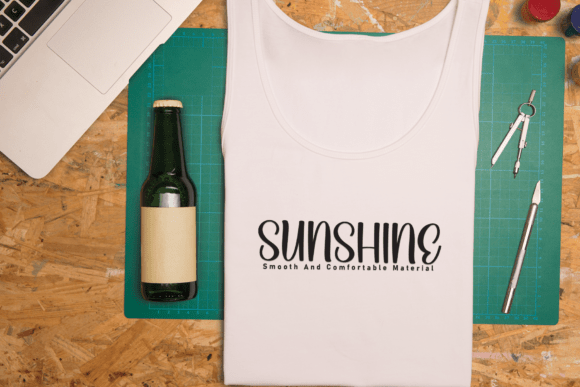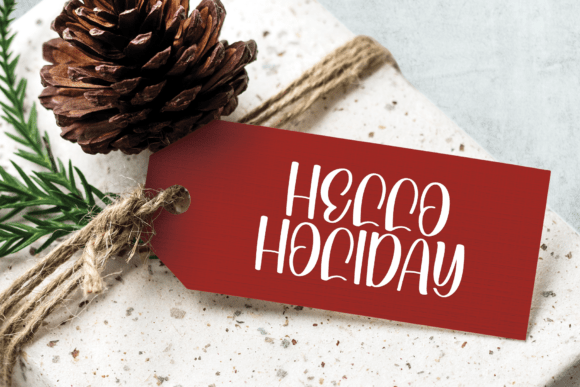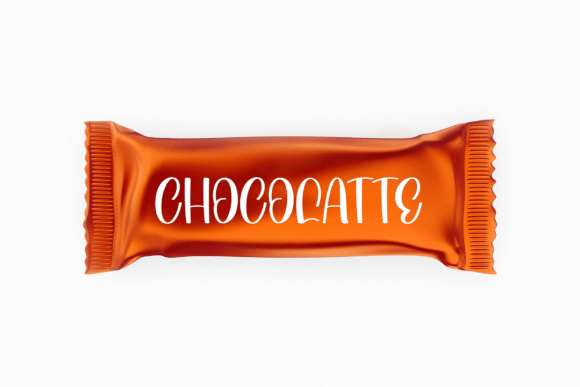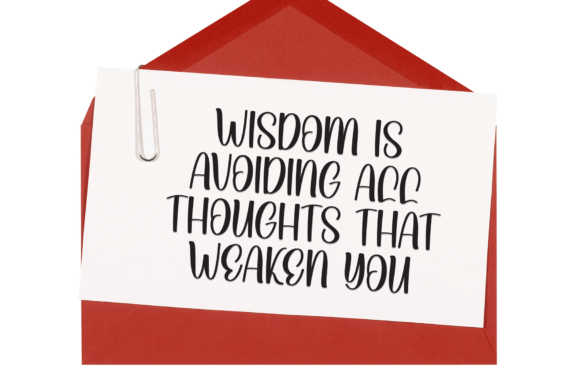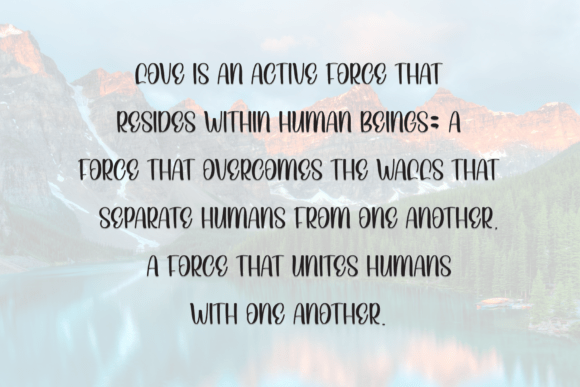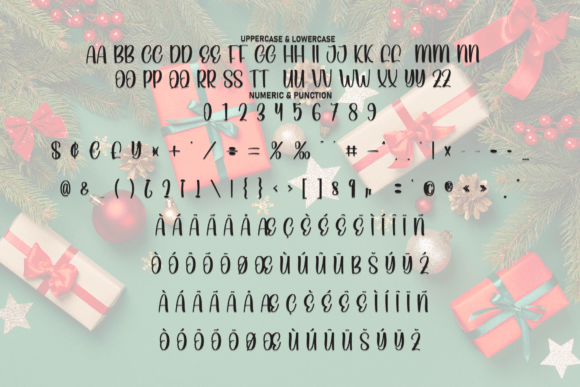
Get Ready to Spread Holiday Cheer with the Perfect Font
As the holiday season approaches, designers are on the lookout for a font that captures the magic of the moment. Whether it’s a festive newsletter, a holiday card, or a seasonal social media campaign, the right font can make all the difference. And that’s where the Happy Christmas Font comes in – a casual and neat display font that embodies the spirit of the season.
With its clean lines, balanced letterforms, and subtle rounded edges, this font is perfect for adding a warm and inviting touch to any design. Ideal for branding, headlines, packaging, and digital content, the Happy Christmas Font is a valuable asset for designers looking to create engaging and festive visual content.
Whether you’re a seasoned pro or a design newbie, the Happy Christmas Font is sure to bring a smile to your face and a touch of holiday cheer to your designs.
Key Features of Happy Christmas Font
- Unique Characteristics: The font features a playful and festive design, with bold and colorful characters, making it perfect for Christmas-themed designs and marketing materials.
- Font Style: Comes in a single font style, with a bold and festive look, ideal for headings, titles, and emphasis in designs.
Happy Christmas Font Review
Overall, I found the Happy Christmas Font to be a cheerful and playful choice for holiday-themed projects. It’s perfect for creating festive designs, from invitations to social media graphics. ✨
The font is highly legible, even at small sizes, which is a must-have for digital applications. The characters are also well-designed, with clean lines and a consistent aesthetic. ✨
- ⚠️ Limited use: The font is designed specifically for holiday-themed projects, so it may not be suitable for general use throughout the year.
- ⚠️ Limited font weights: The font only comes in a few weights, which may limit its versatility in certain design applications.
- ⚠️ Limited language support: The font may not support non-English languages, which could be a limitation for international projects.
Despite these limitations, I still think the Happy Christmas Font is a great choice for holiday-themed projects. It’s easy to use, highly customizable, and adds a touch of festive cheer to any design. With its cheerful and playful vibe, it’s sure to put a smile on your audience’s faces. Overall, I give it 4 out of 5 stars.
Getting the Most Out of the Font
To get the most out of the “Happy Christmas Font”, use it to create festive holiday designs, such as invitations, cards, and gift tags. Experiment with different font sizes, colors, and combinations to add a touch of holiday cheer to your designs.
The “Happy Christmas Font” is ideal for creating holiday-themed designs, such as:
– Christmas card invitations
– Holiday party invitations
– Gift tags and gift wrapping